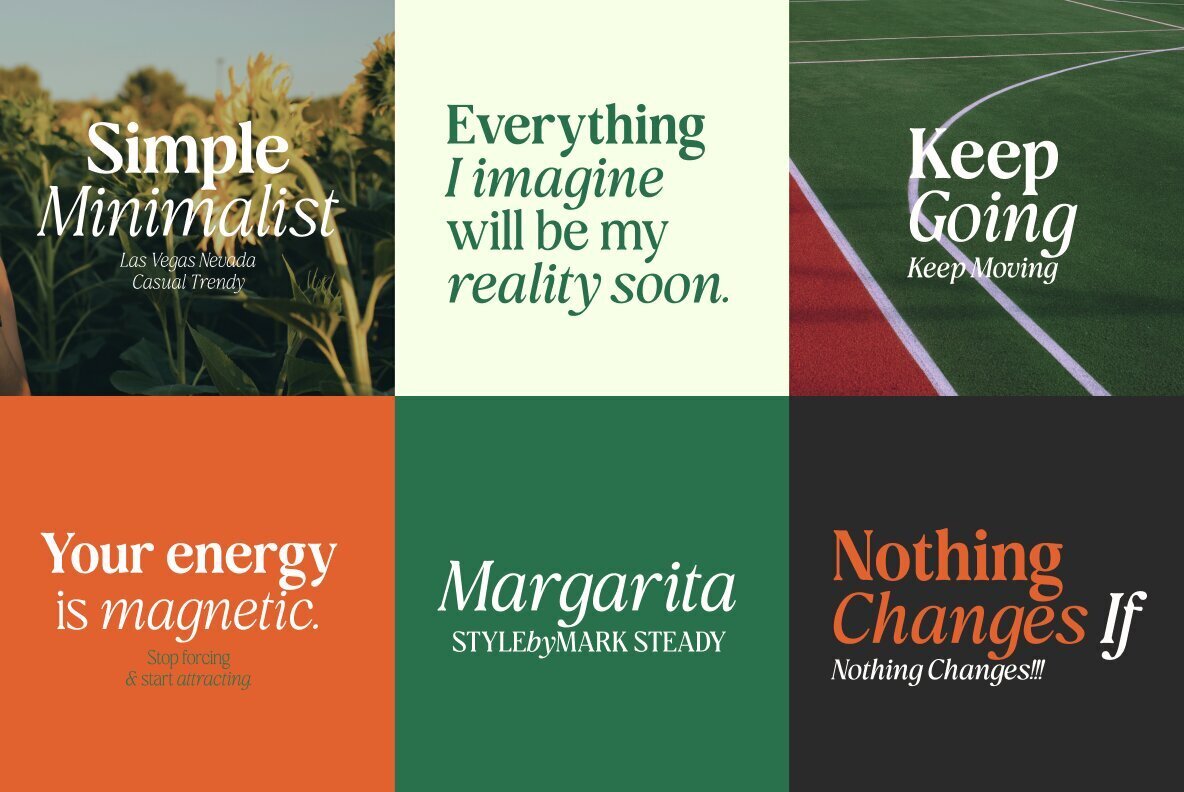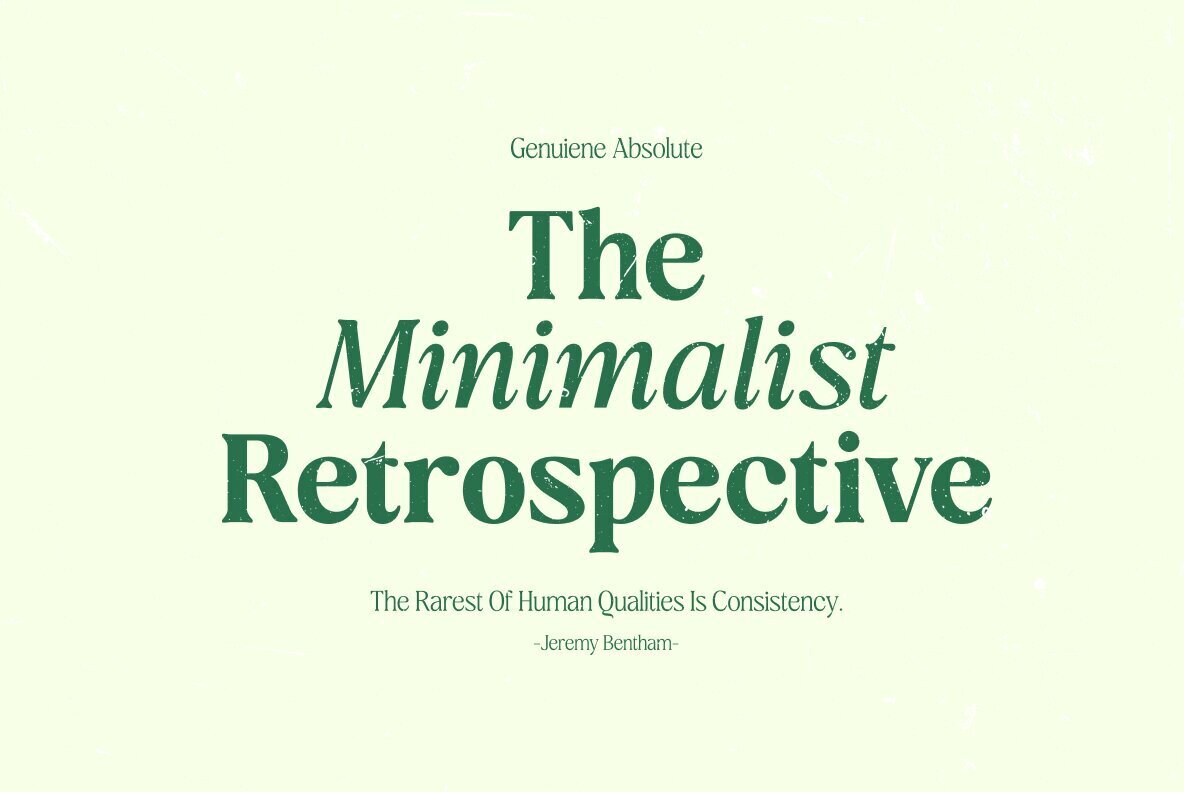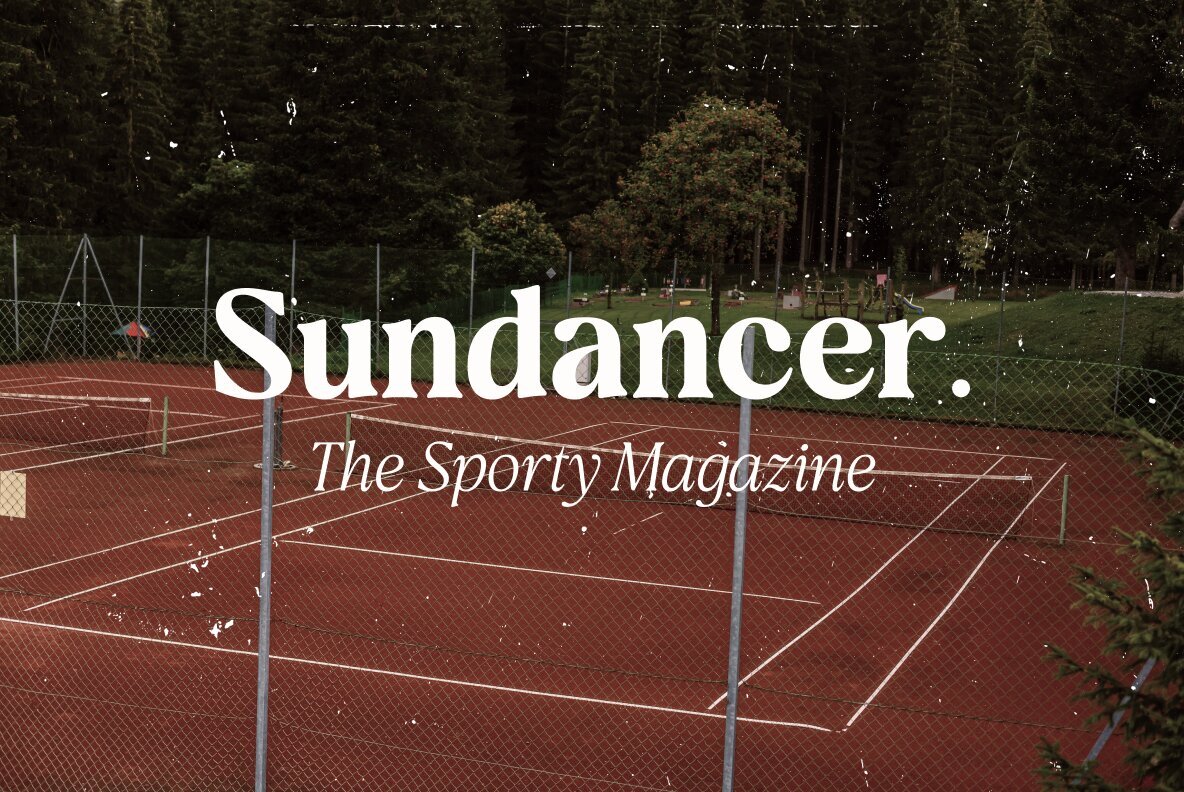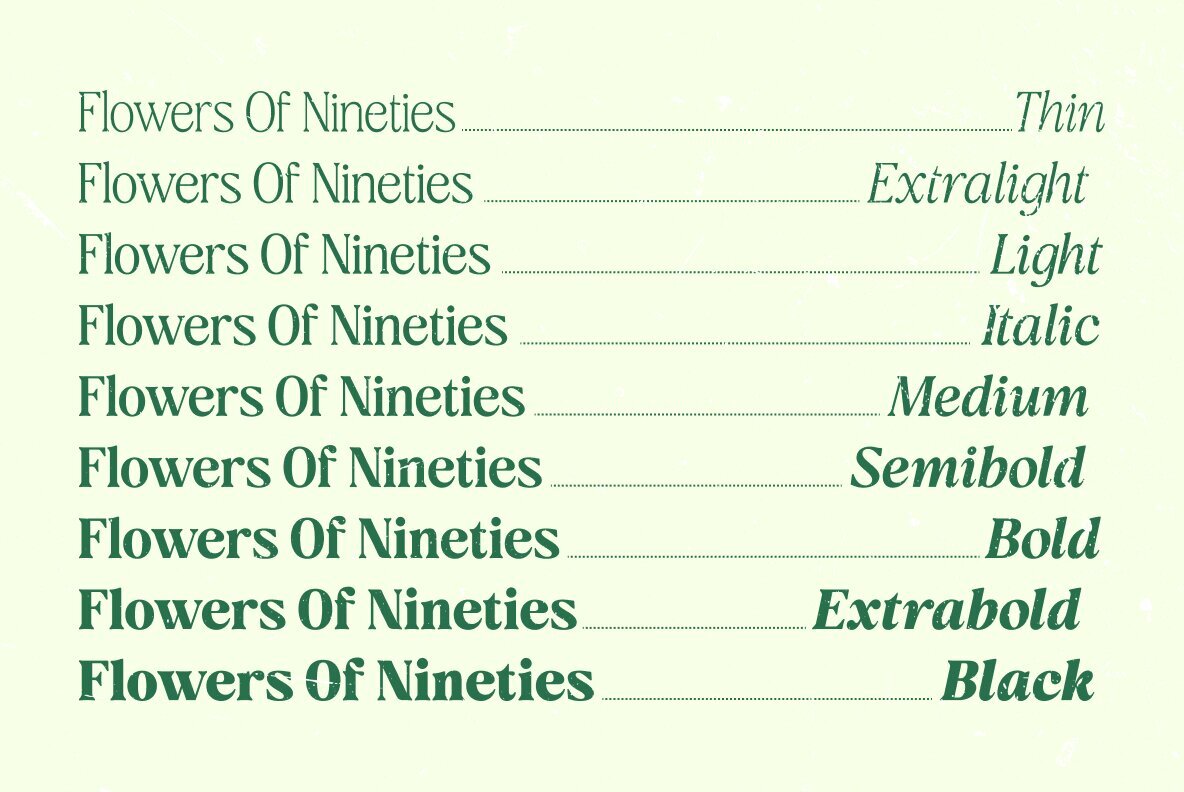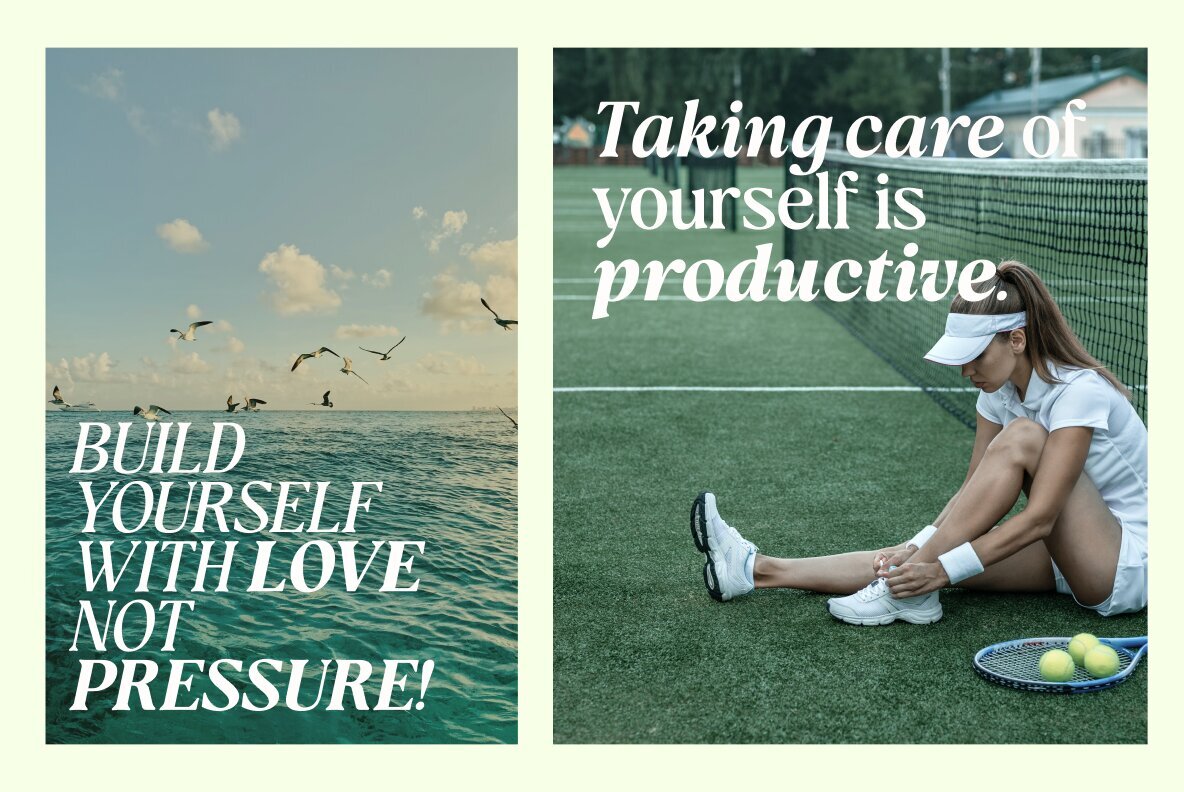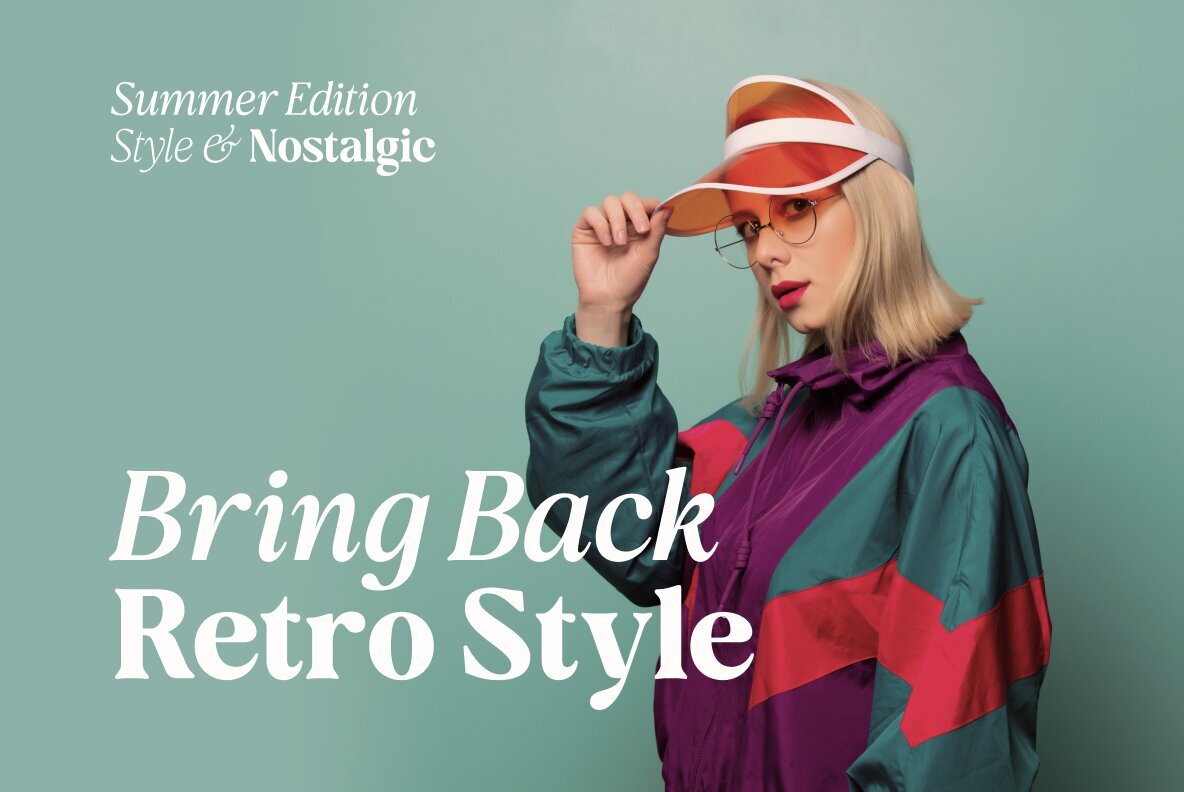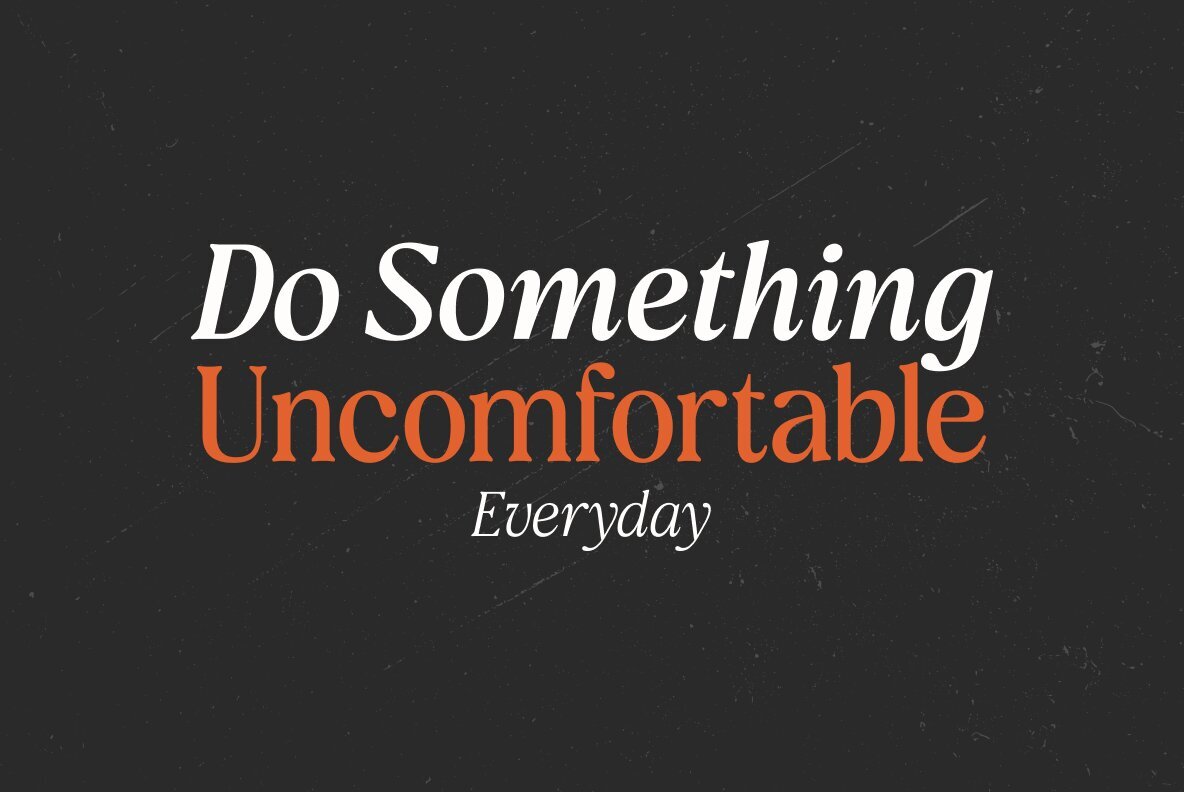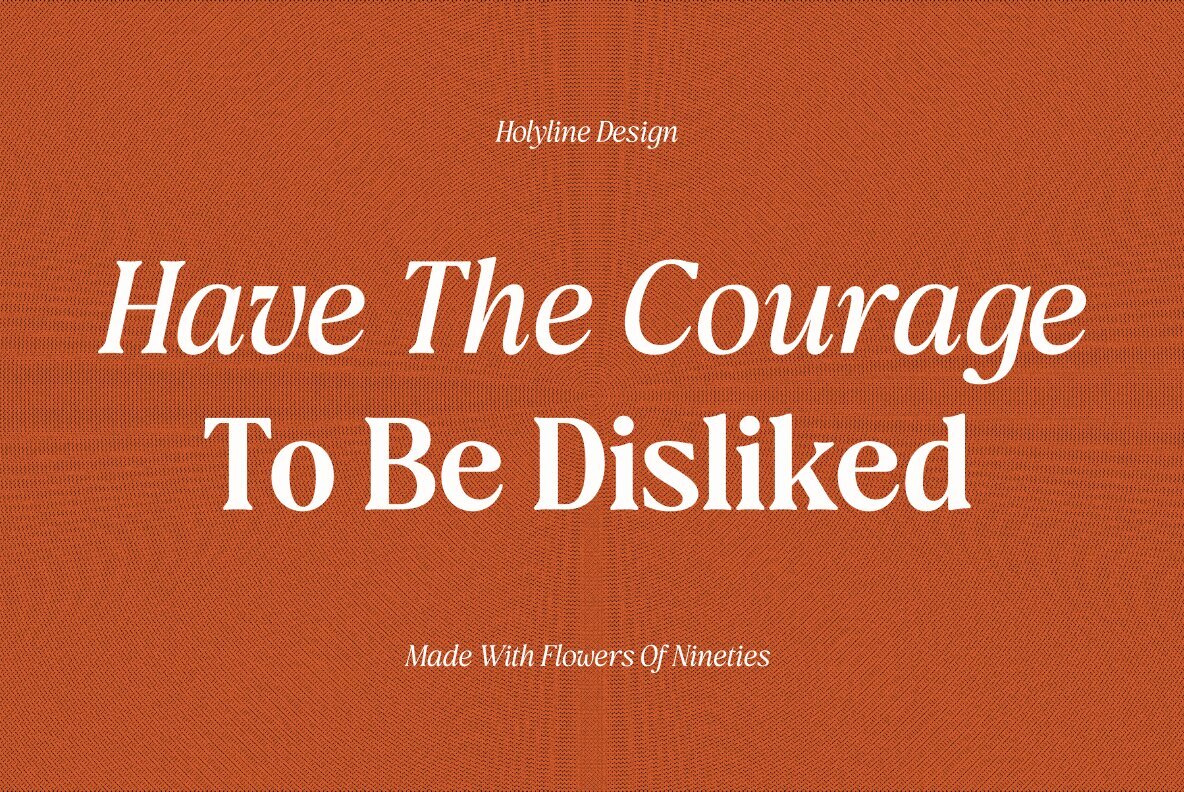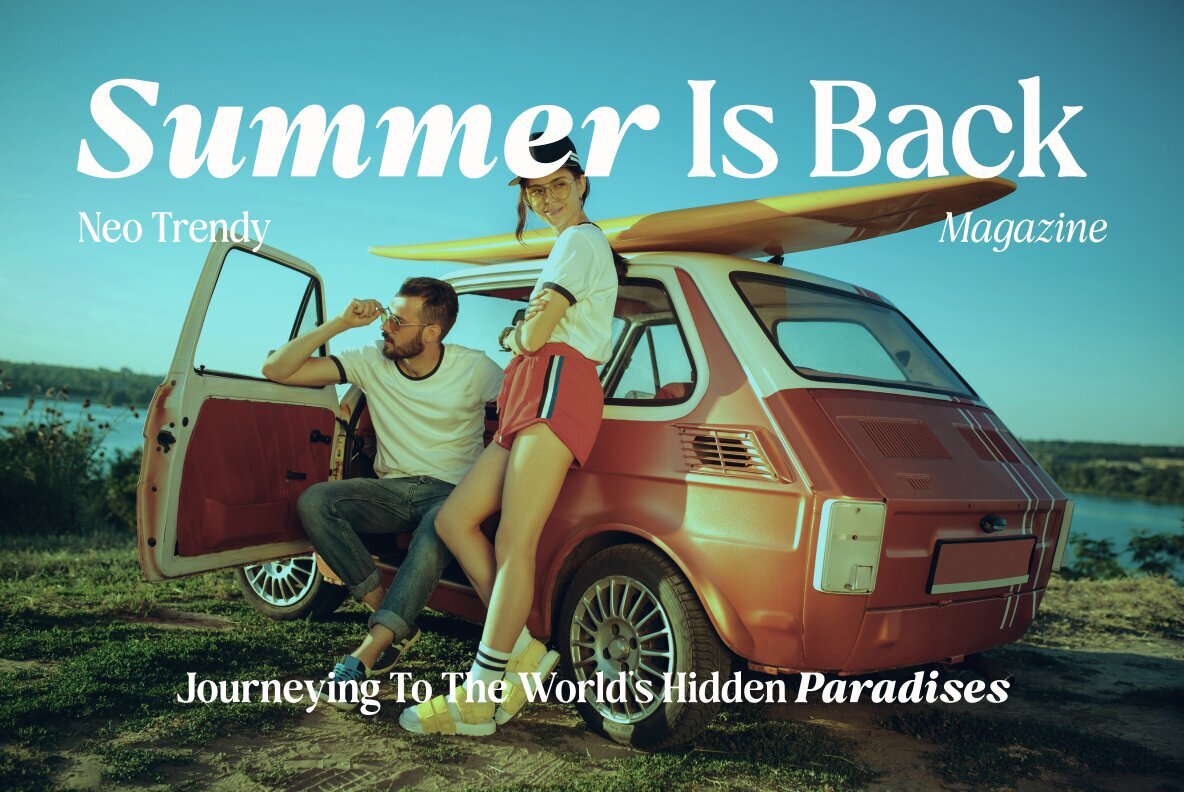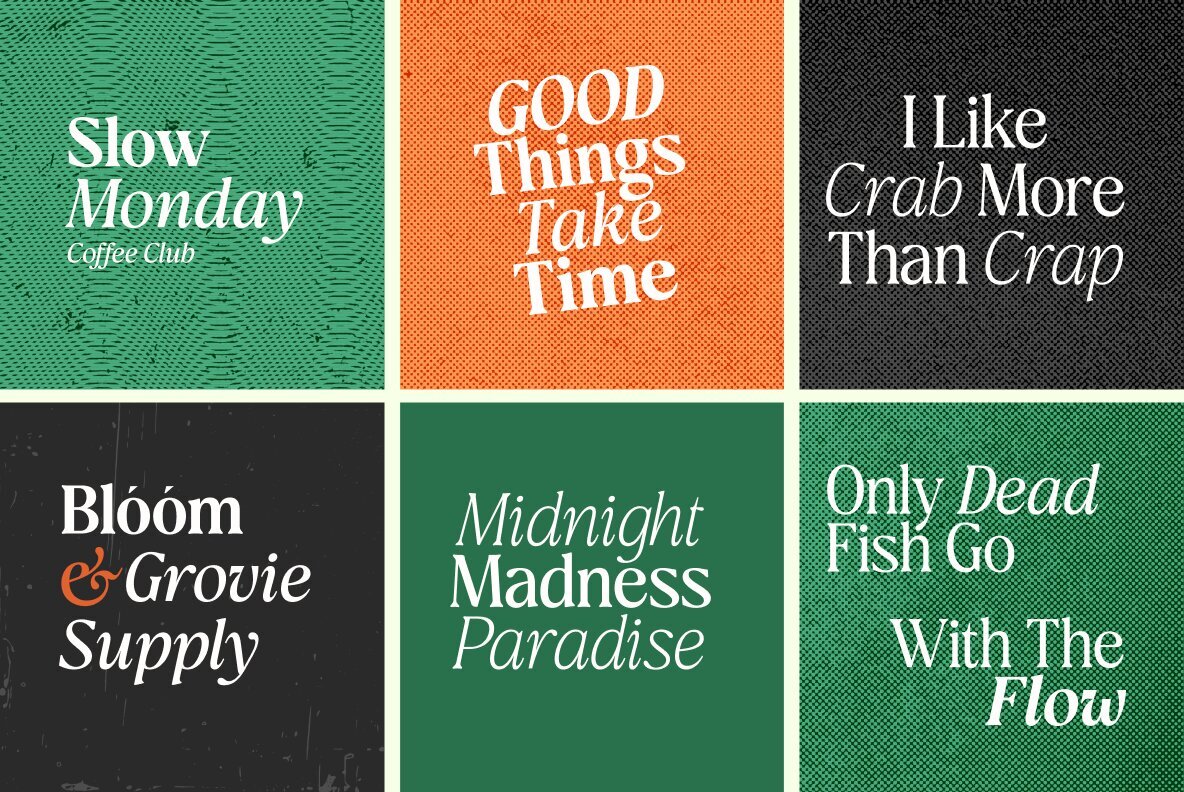
Flowers Of Nineties Font
Flowers Of Nineties is a beautifully crafted serif display font that pays homage to the elegance of vintage typography. Drawing inspiration from iconic typeface styles, classic magazines, and timeless aesthetics from the ’90s, this font exudes charm and sophistication. Featuring 9 weights from thin to black, along with matching italics for each weight, Flowers Of Nineties offers a total of 18 fonts. This versatility makes it ideal for a wide range of design applications, from editorial layouts to branding, packaging, and more. Perfect for designers seeking a blend of retro nostalgia and contemporary flair, Flowers Of Nineties ensures every project leaves a lasting impression with its bold character and refined details.